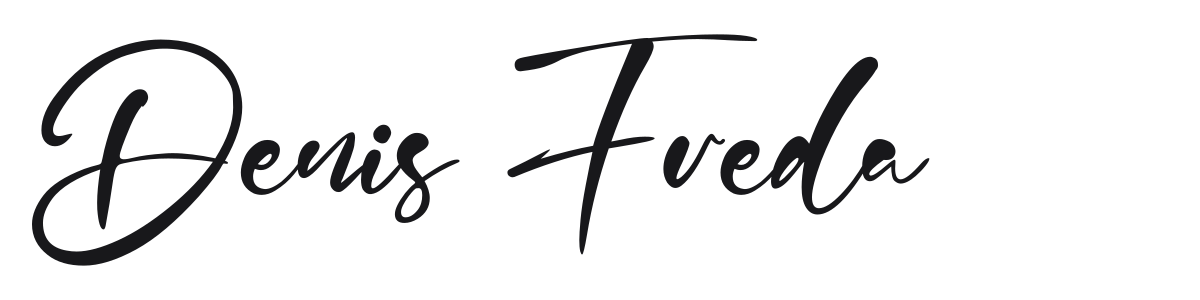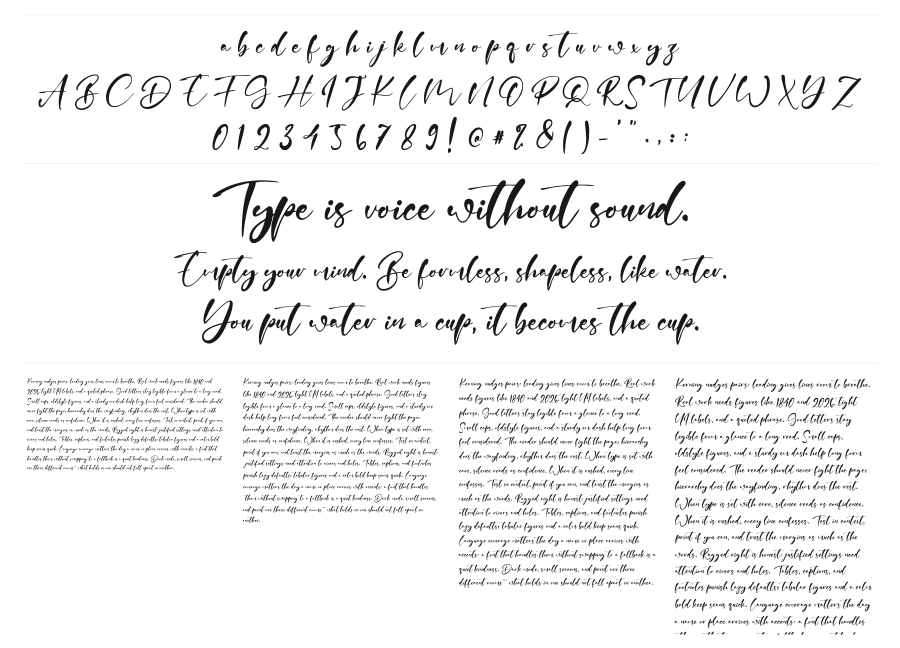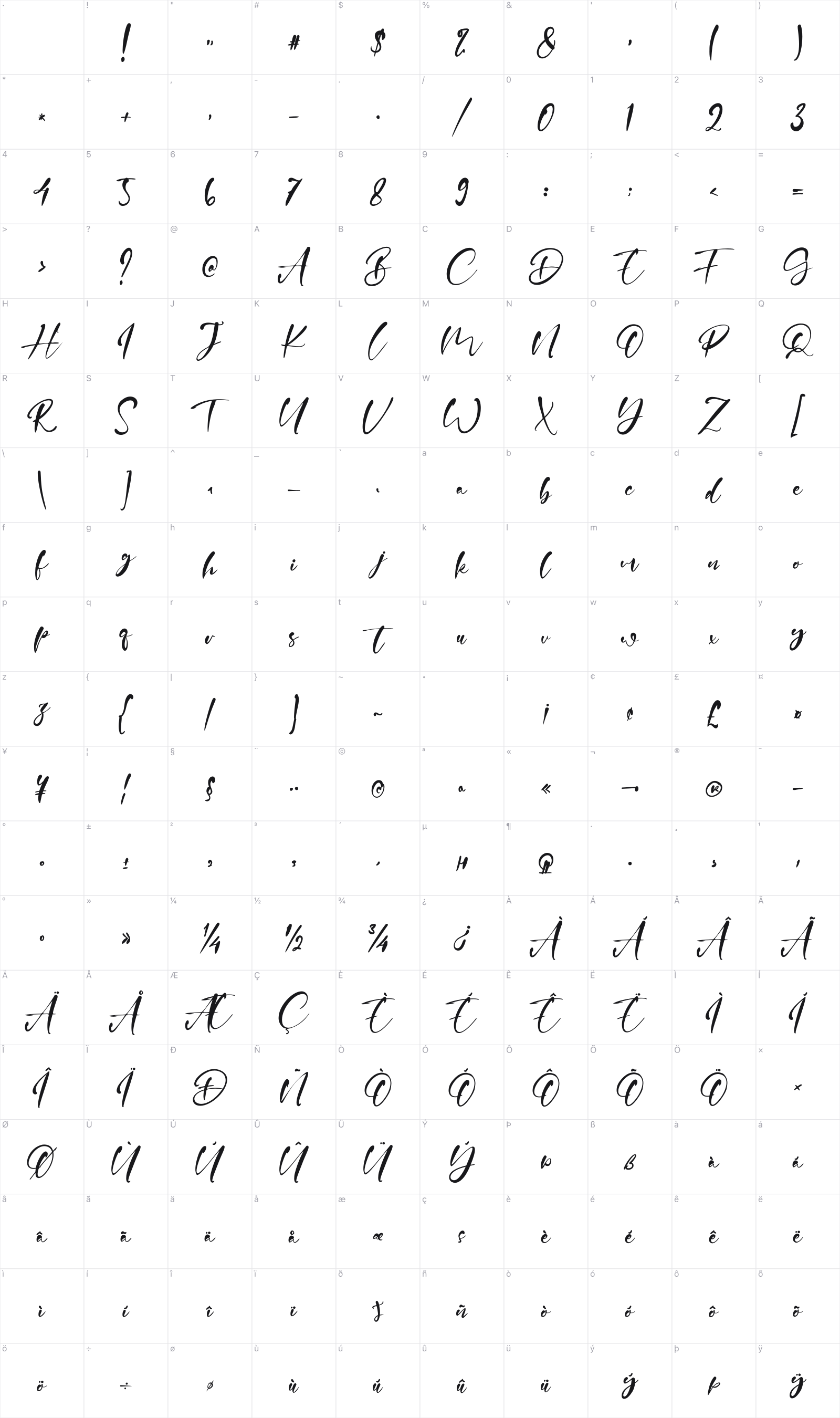
Denis Freda
Denis Freda is a contemporary brush script with sweeping ink strokes and dramatic contrast between thick stems and hairline connectors. The letters flow together with long, looping entries and exits that give it an energetic, almost breathless rhythm. It suits wedding stationery, beauty branding, and lifestyle packaging where handmade warmth and script elegance are the point.